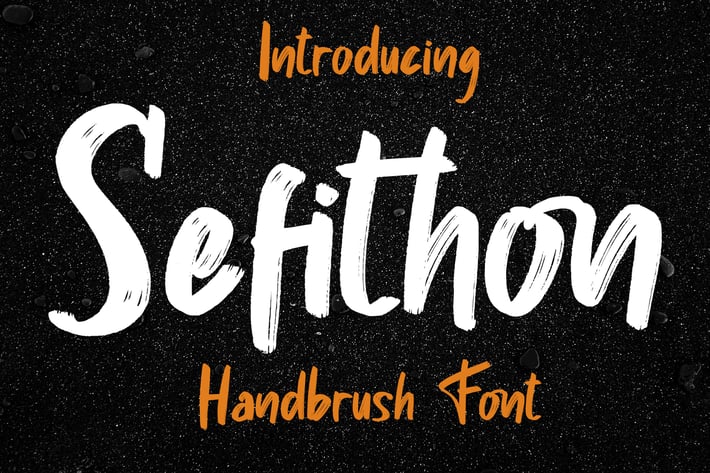
Sefithon Handbrush Font
Sefithon is a type of textured brush or paint scratches or original brush, there are textures like the original stroke of this font suitable for other film or commercial needs that can support your business or company. thank you
more than 200+ of glyphs\
Ligature\
Basic Latin Language Support (AÀÁÂÃÄÅCÇDÐEÈÉÊËIÌÍÎÏÑOØÒÓÔÕÖUÙÜÚÛWYÝŸÆß )